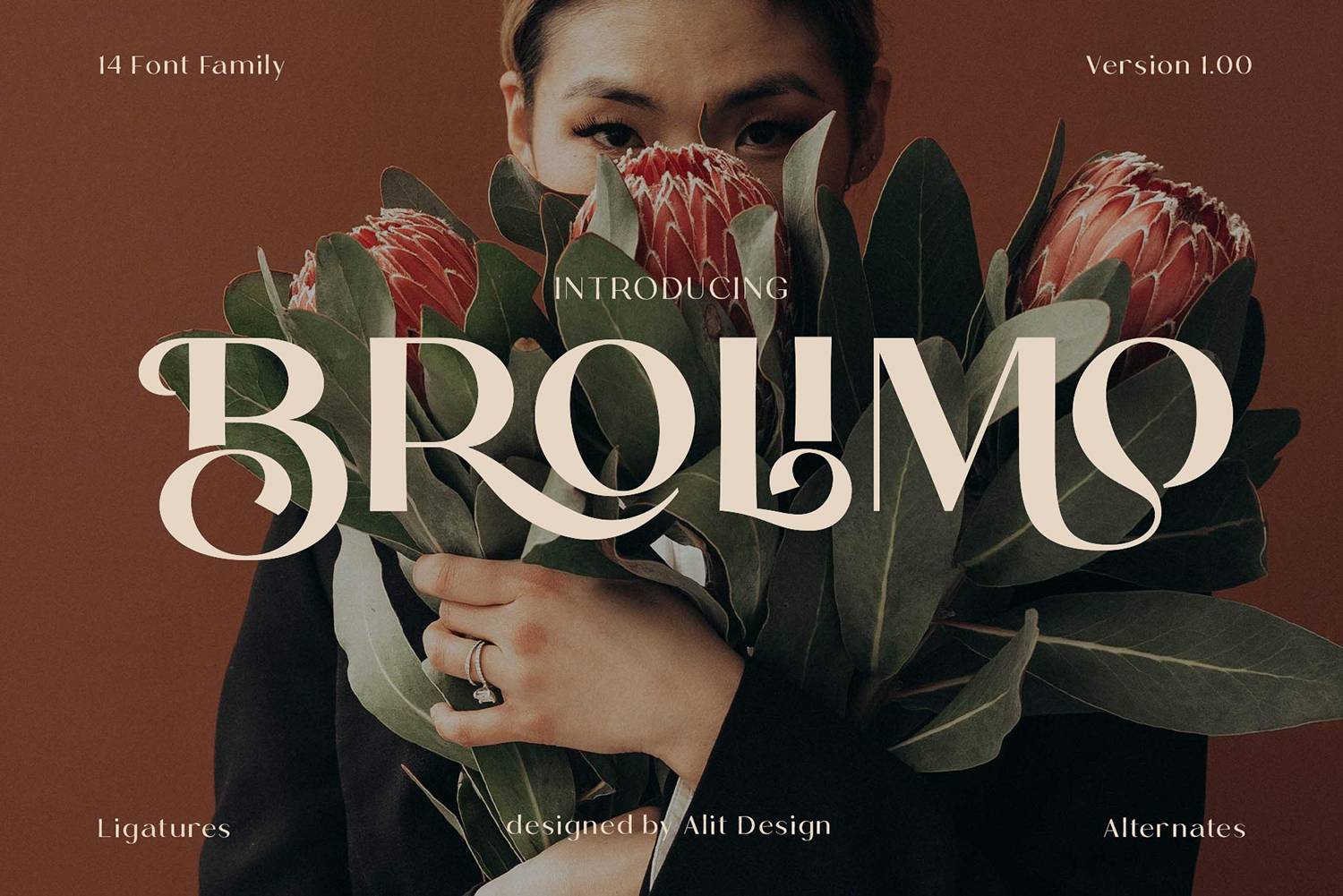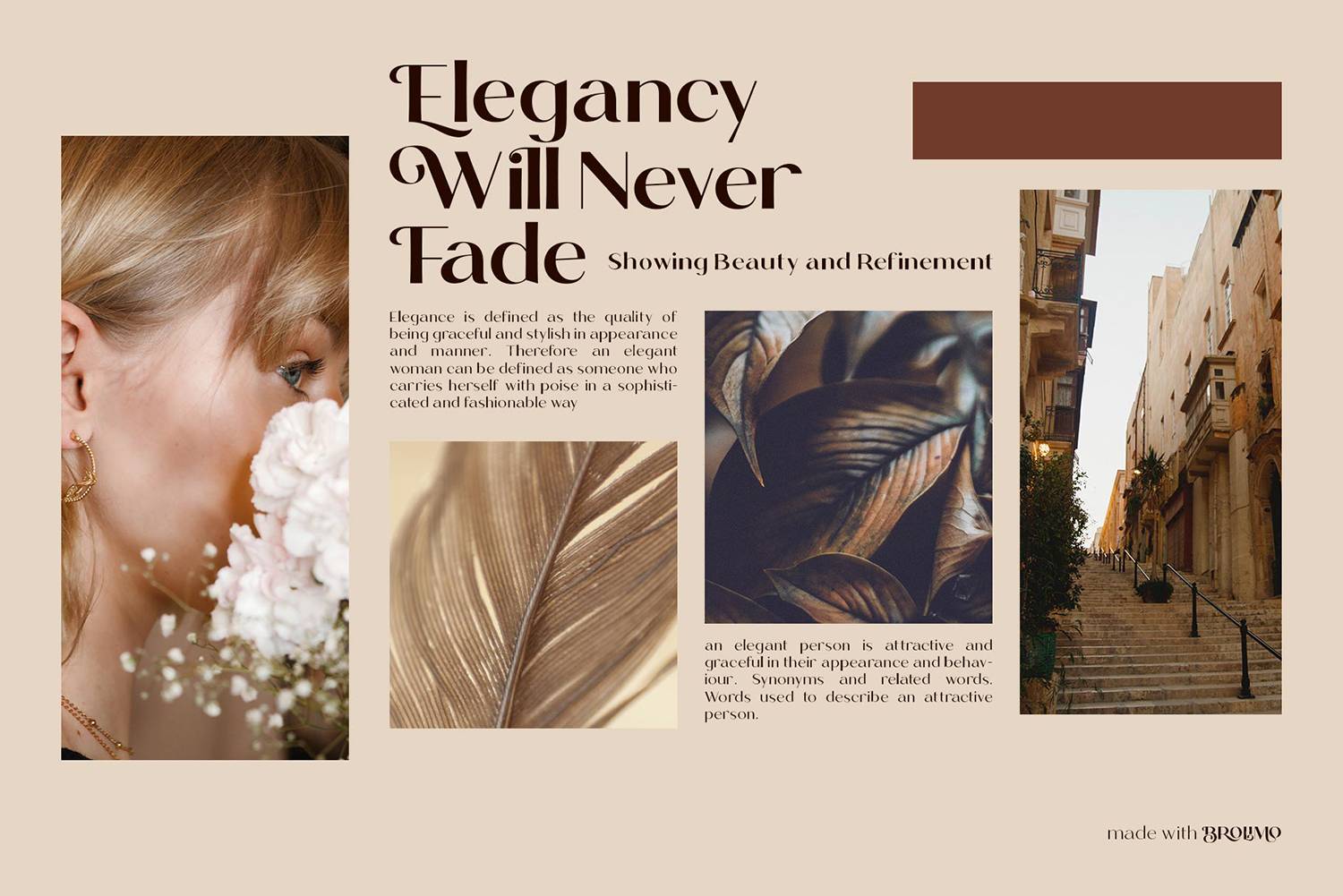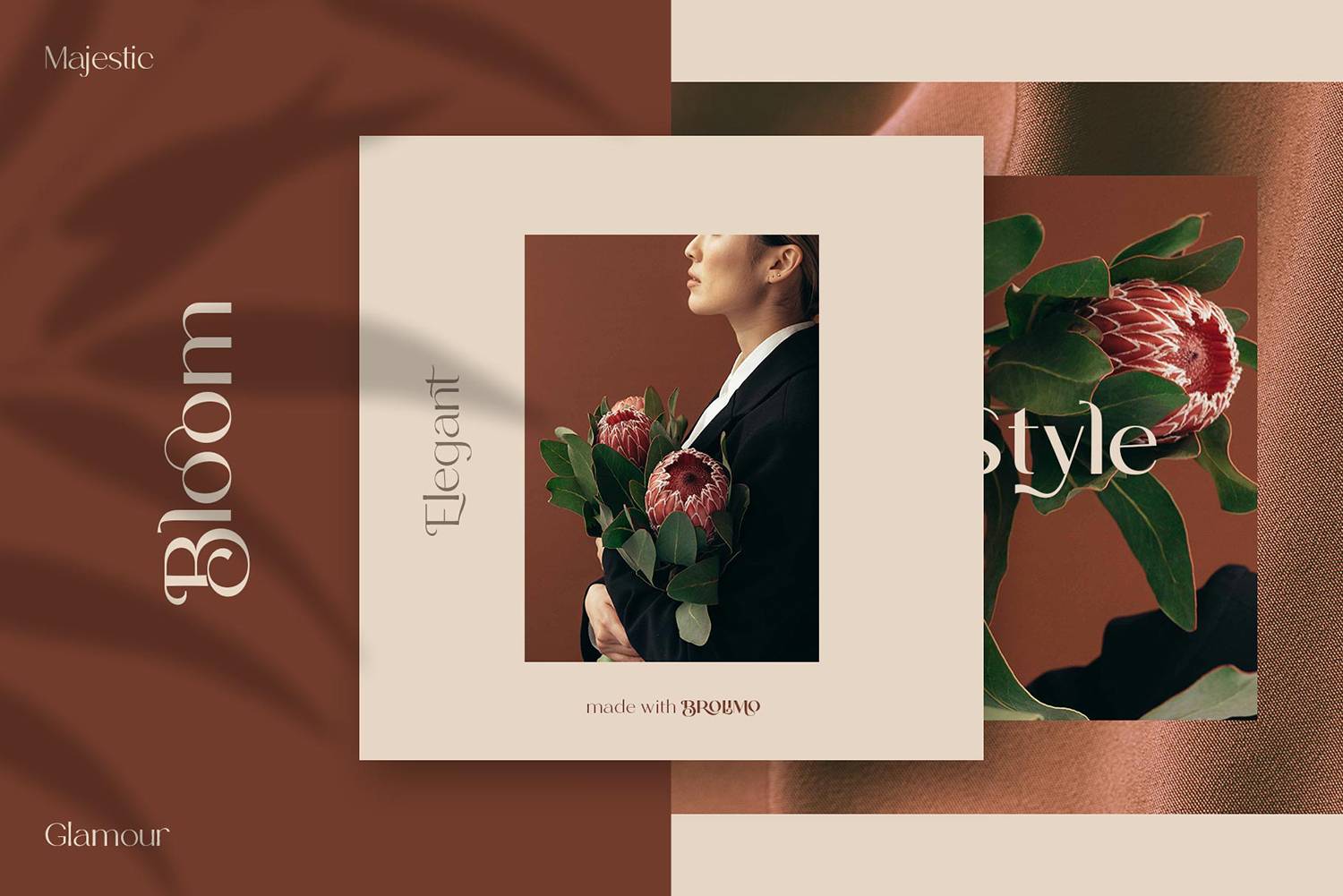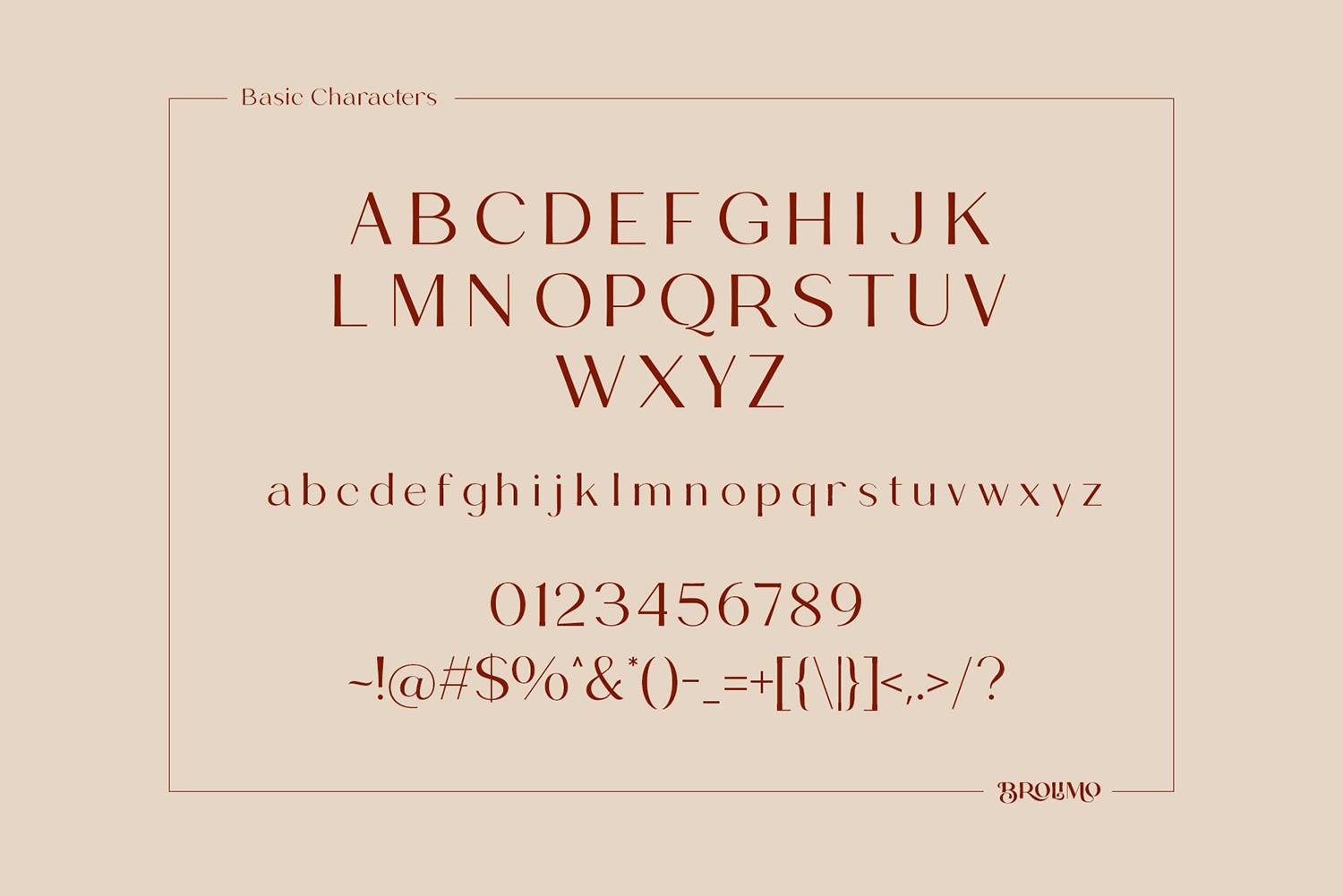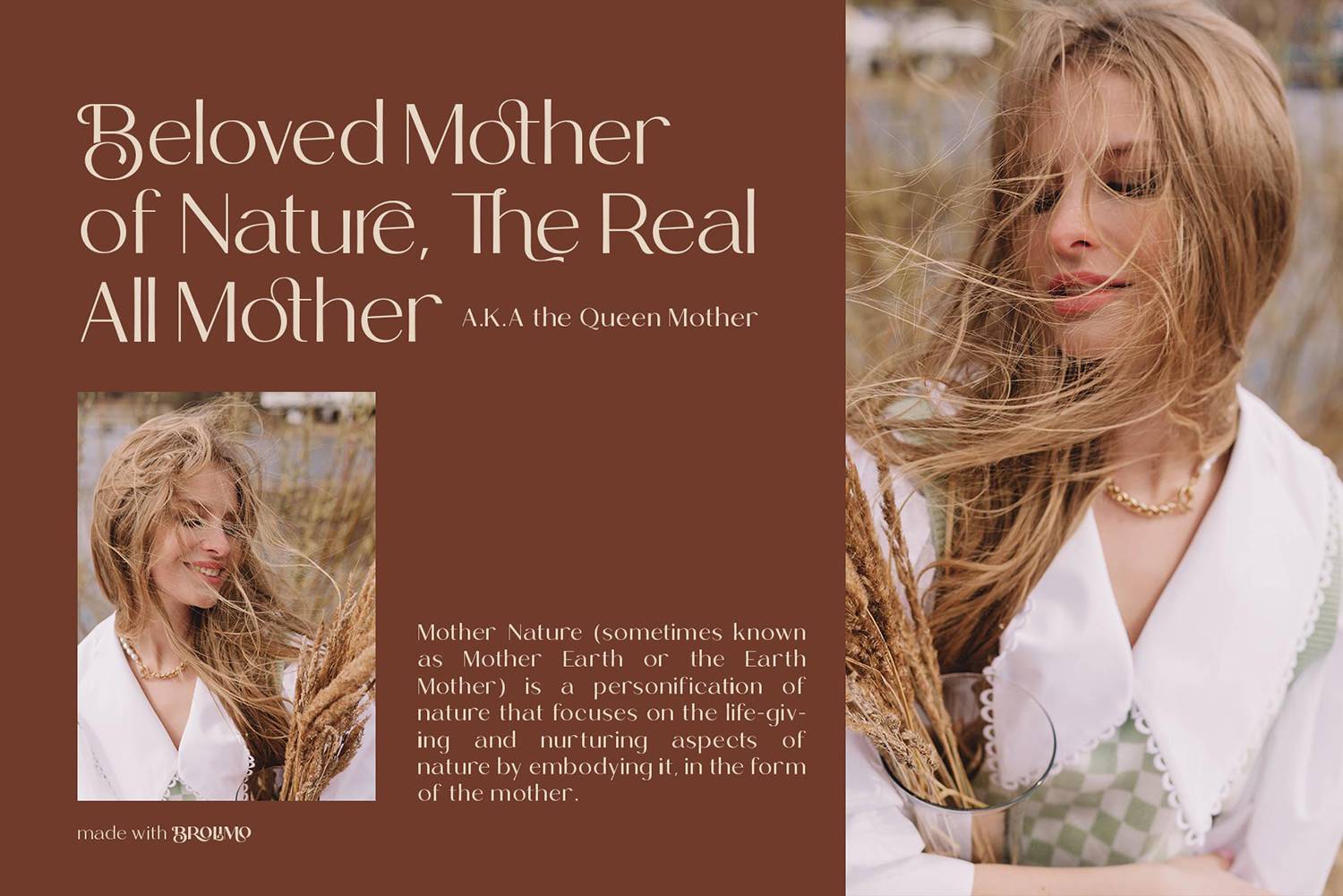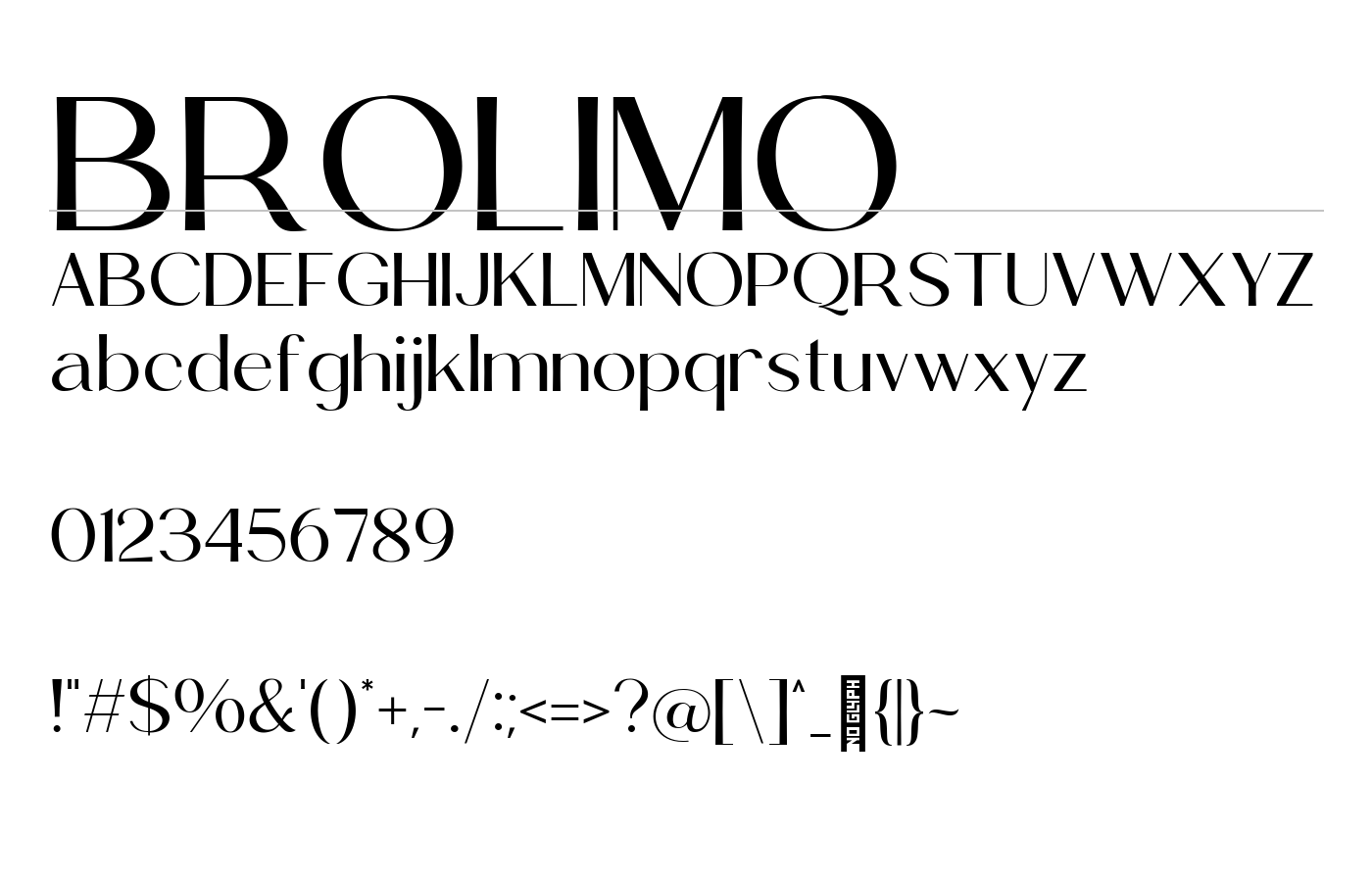
Brolimo is an elegant serif font with a modern, high-contrast design featuring thin, sharp strokes and refined curves that create a sophisticated and luxurious feel. Its tall, narrow letterforms and unique details, like the distinctive tails and double-story characters, make it well-suited for upscale branding, editorial headlines, and fashion packaging where a stylish and striking impression is desired. This font works beautifully in contexts that need a touch of classic refinement paired with contemporary flair.
Brolimo Font
About Brolimo Font